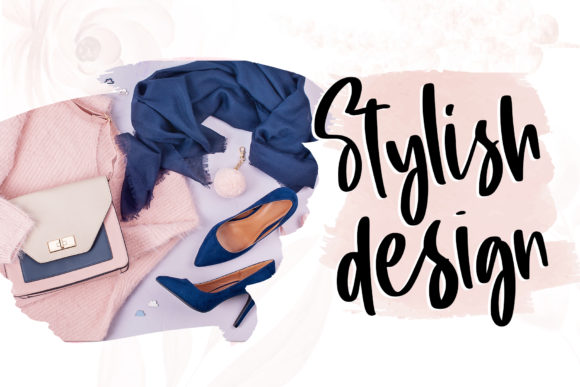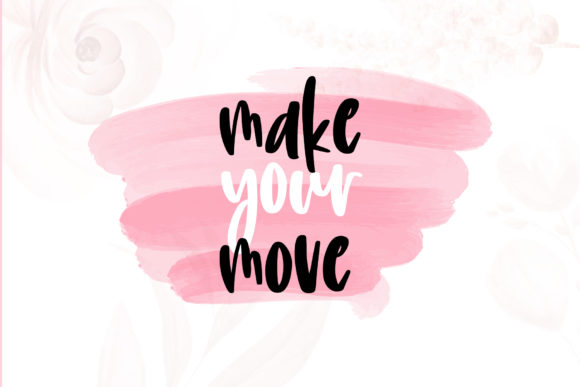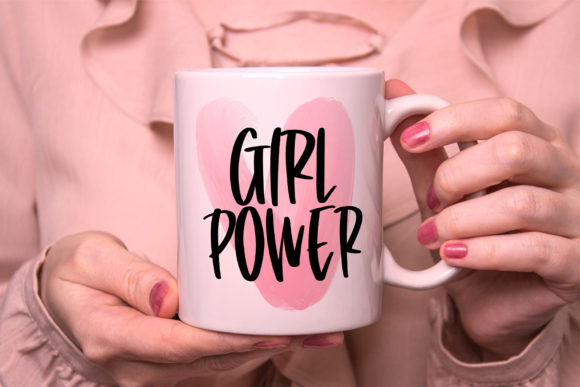
Introduction to Playful Delight Font
As a designer, there’s nothing quite like the thrill of discovering a new font that sparks creativity and brings your ideas to life. For me, that moment came when I stumbled upon the Playful Delight Font, a sweet and quirky handwritten font that’s been a game-changer in my creative projects.
With its varying baseline, smooth lines, and gorgeous glyphs, this font is a true design treasure. What’s more, its PUA encoding allows for seamless access to all the glyphs and swashes, making it a breeze to customize and add that extra oomph to your designs. Whether you’re working on a high-quality brochure, a free downloadable resource, or a design project with a transparent background, the Playful Delight Font is an invaluable resource that’s sure to elevate your creative work.
Key Features of Playful Delight Font
- High-quality design: The Playful Delight Font is designed with precision and care to ensure a professional and polished look for any creative project.
- Unique characteristics: The Playful Delight Font features a playful, handwritten style with a range of expressive flourishes, making it perfect for adding personality to your designs.
- Perfect for creative projects: The Playful Delight Font is ideal for use in creative projects such as invitations, social media graphics, and advertising materials.
Honest Review: Playful Delight Font
As a designer, I’m always on the lookout for high-quality fonts that can elevate my creative projects. I recently stumbled upon the Playful Delight Font, and I’m excited to share my thoughts on it.
- ✨ The font is incredibly versatile, making it suitable for a wide range of design projects, from kids’ books to advertising campaigns.
- ⚠️ The font is not as customizable as some other options, which can be a drawback for designers who like to get creative with their typography.
- ⚠️ The font library is relatively small, which may not be ideal for designers working on complex projects.
Overall, I’d say the Playful Delight Font is a solid addition to any designer’s toolkit. While it may not be perfect, its versatility and ease of use make it a great resource for creative projects.
Tips for Getting the Most Out of Playful Delight Font
Experiment with different font sizes, colors, and styles to create a unique look. Use the font in conjunction with other design elements to add depth and interest to your design.
The Playful Delight Font is perfect for creative projects, such as social media graphics, blog posts, and advertising materials. Its playful and fun nature makes it ideal for designs that require a lighthearted and approachable tone.